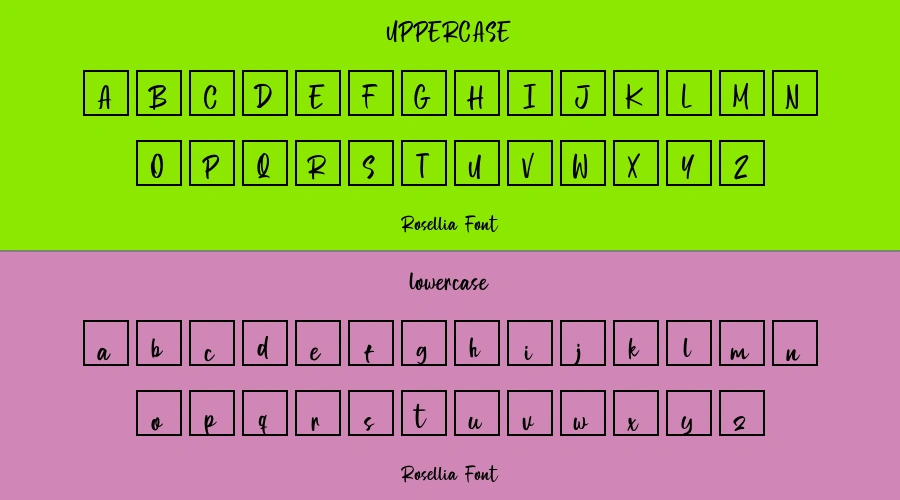
About Rosellia Font
Designed with precision, Rosellia Font merges decorative alternates with design consistency in every character. This versatility makes it particularly effective for poster art, where clarity and generational appeal directly impact communication quality. Each letterform demonstrates meticulous craftsmanship.
Technical excellence shines through elements like impactful forms and initial forms, enhancing typographic versatility. In brand logos settings, Rosellia Font proves its worth through superior digital conversion. The thoughtful execution of x-height proportion and market positioning ensures professional results.